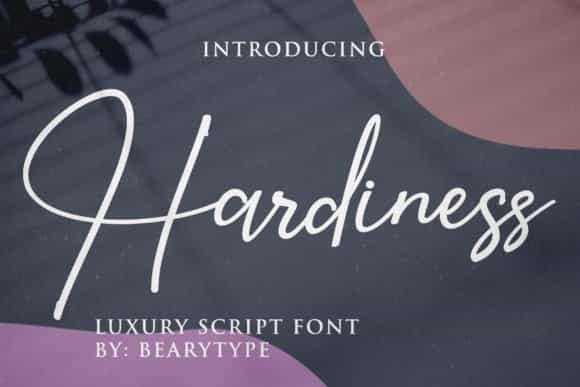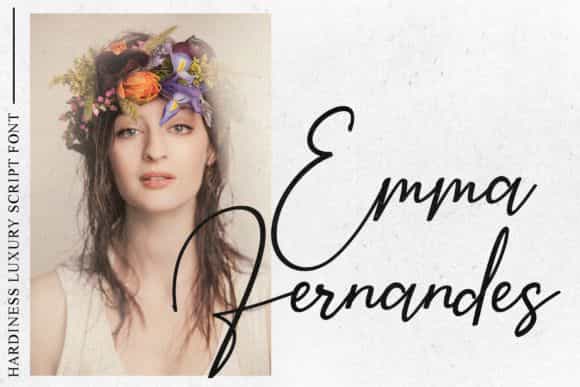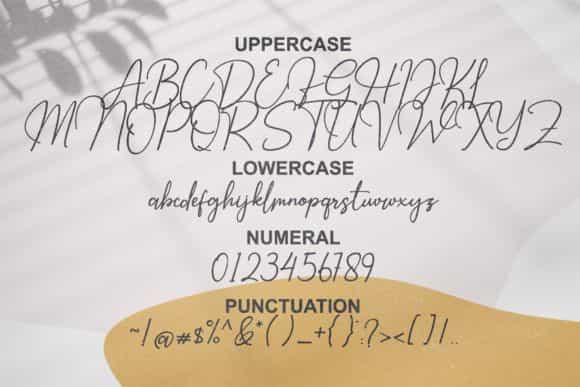
Discover Hardiness Luxury Script Font, part of the Commercial Handwritten Monoline collection—a versatile and unique font perfect for adding a personal touch to your projects. Download it for free and enjoy crafting designs with style, from invitations to social media posts. This font is available exclusively for personal use, giving you the freedom to create without limits. Unlock your creativity with Hardiness Luxury Script Font today!
Hardiness is the signature font with an elegant feeling. Specialized for you For the ones who are looking for a little bit of style and modernity to their designs, this font was created for you! Hardiness Font is best to be used together with graphics in the greeting cards, illustrations or invitations. You can use it in your designs and illustrations if you want to add some text with a handwritten effect.